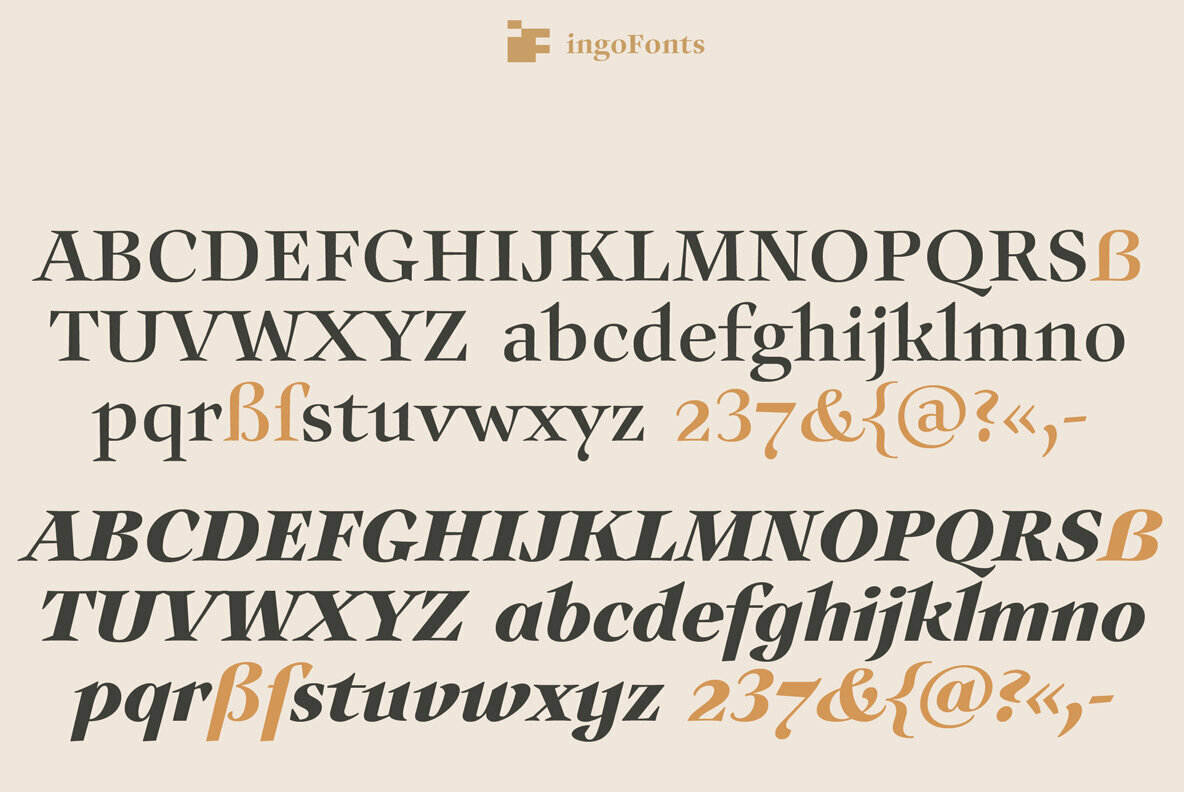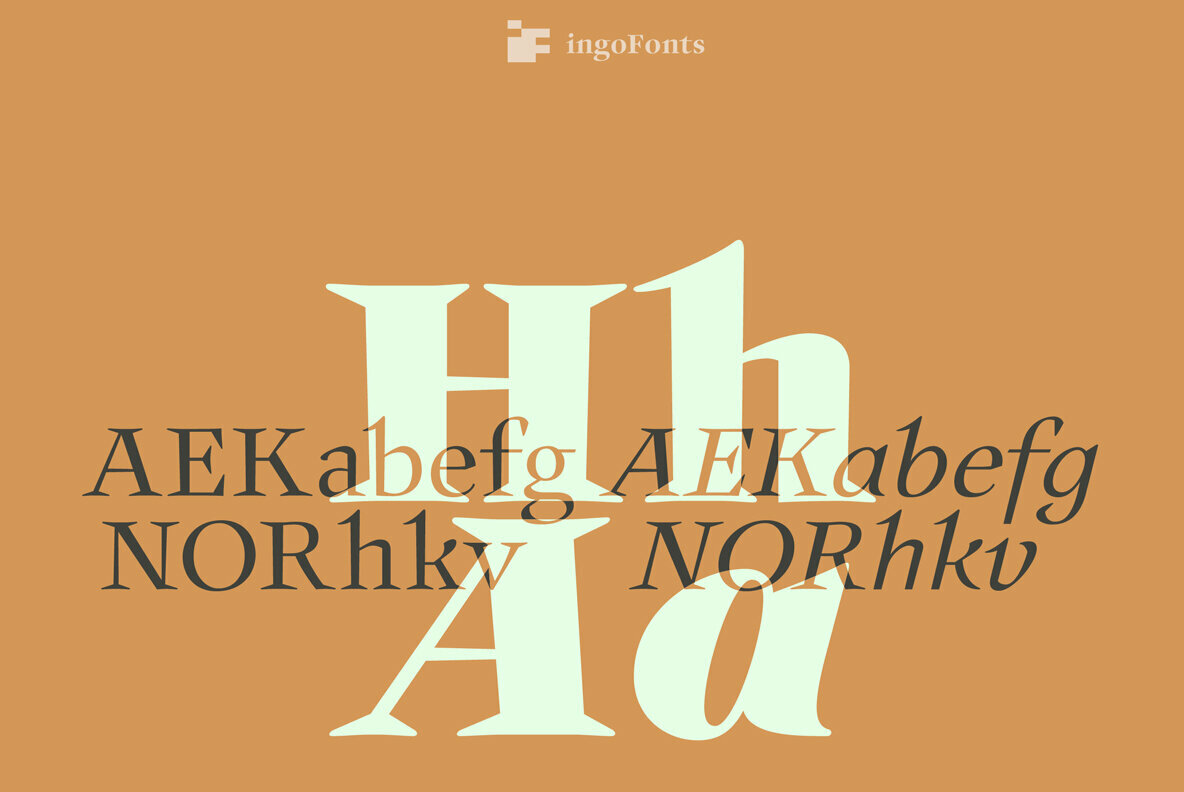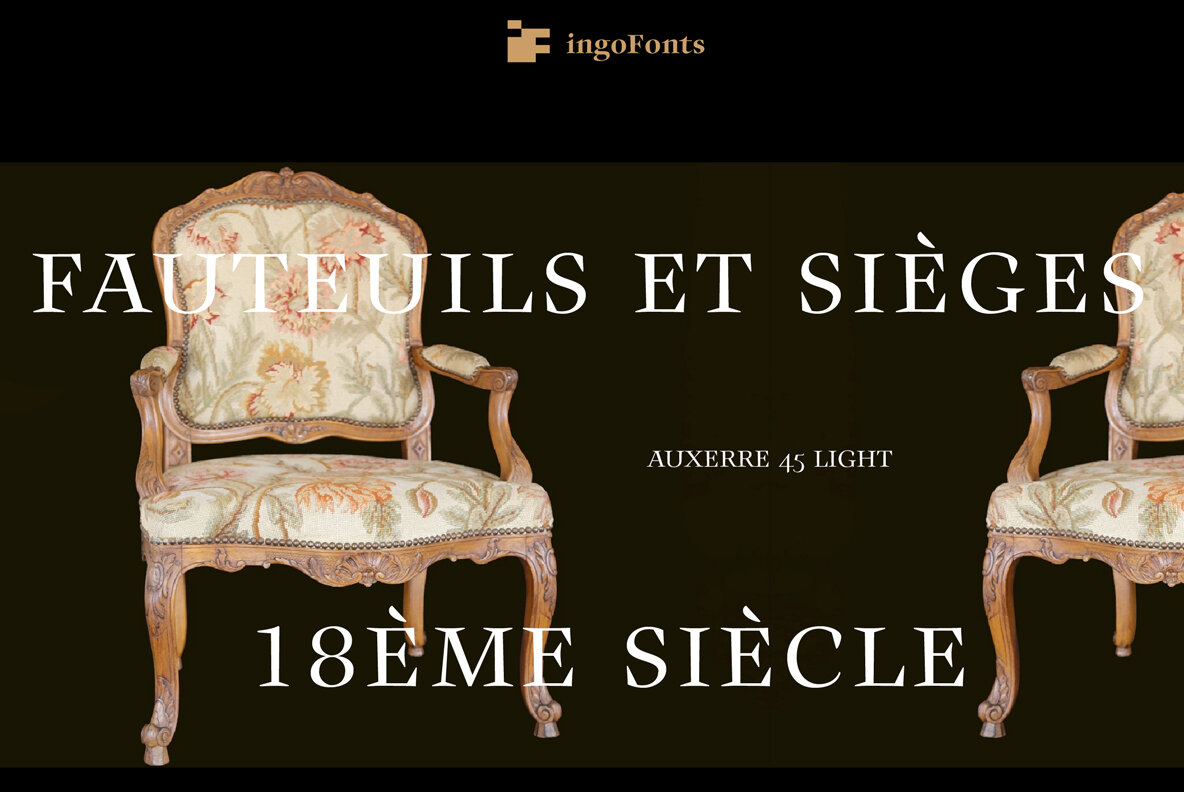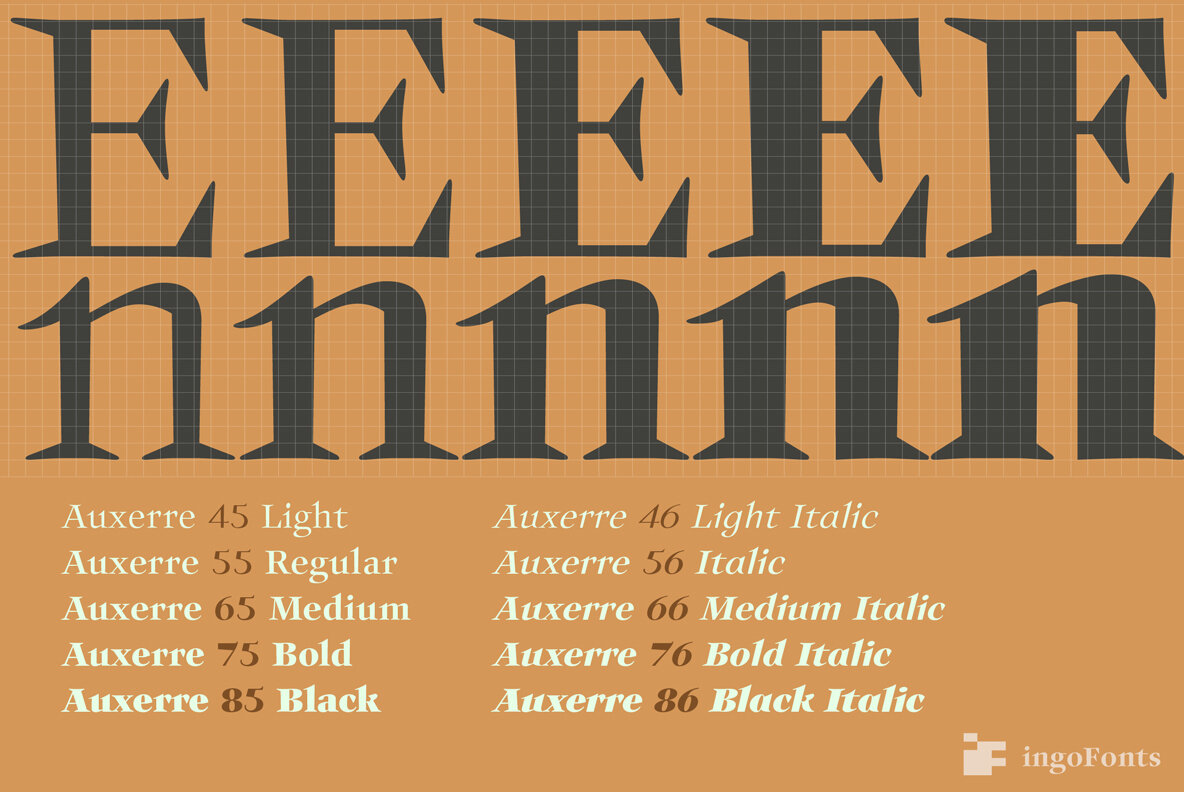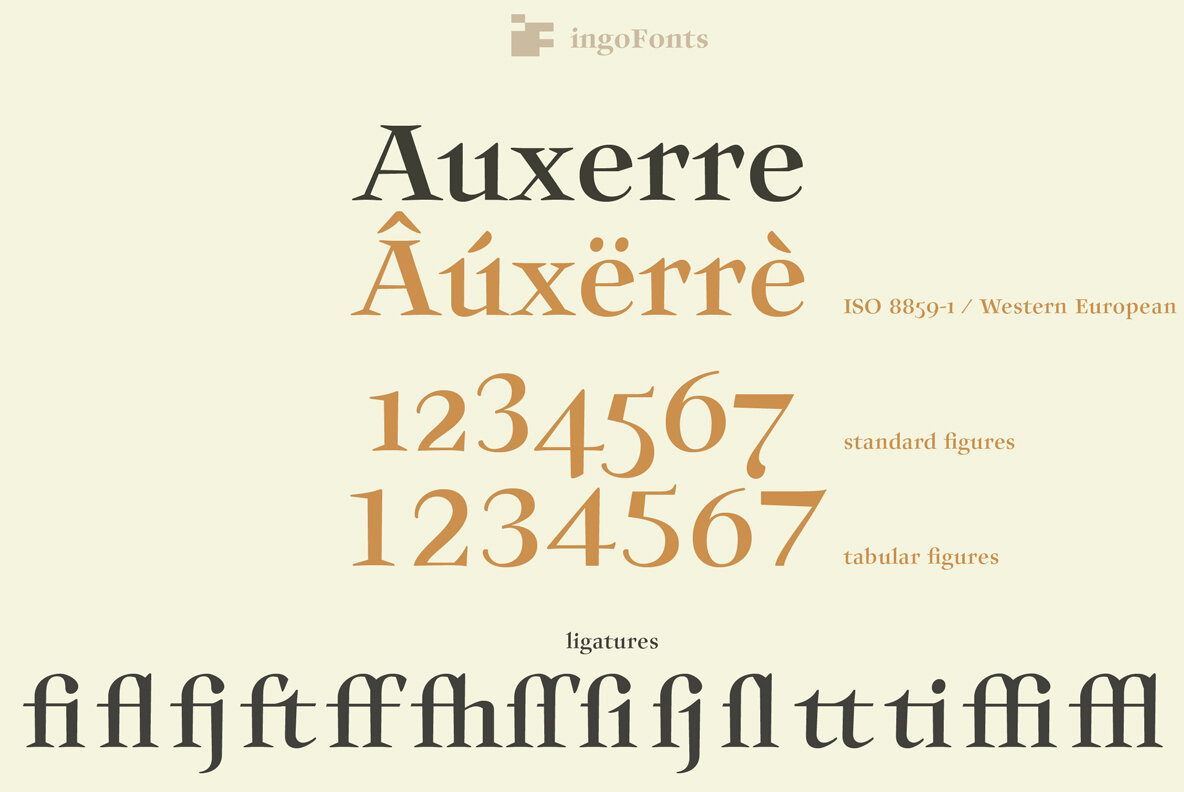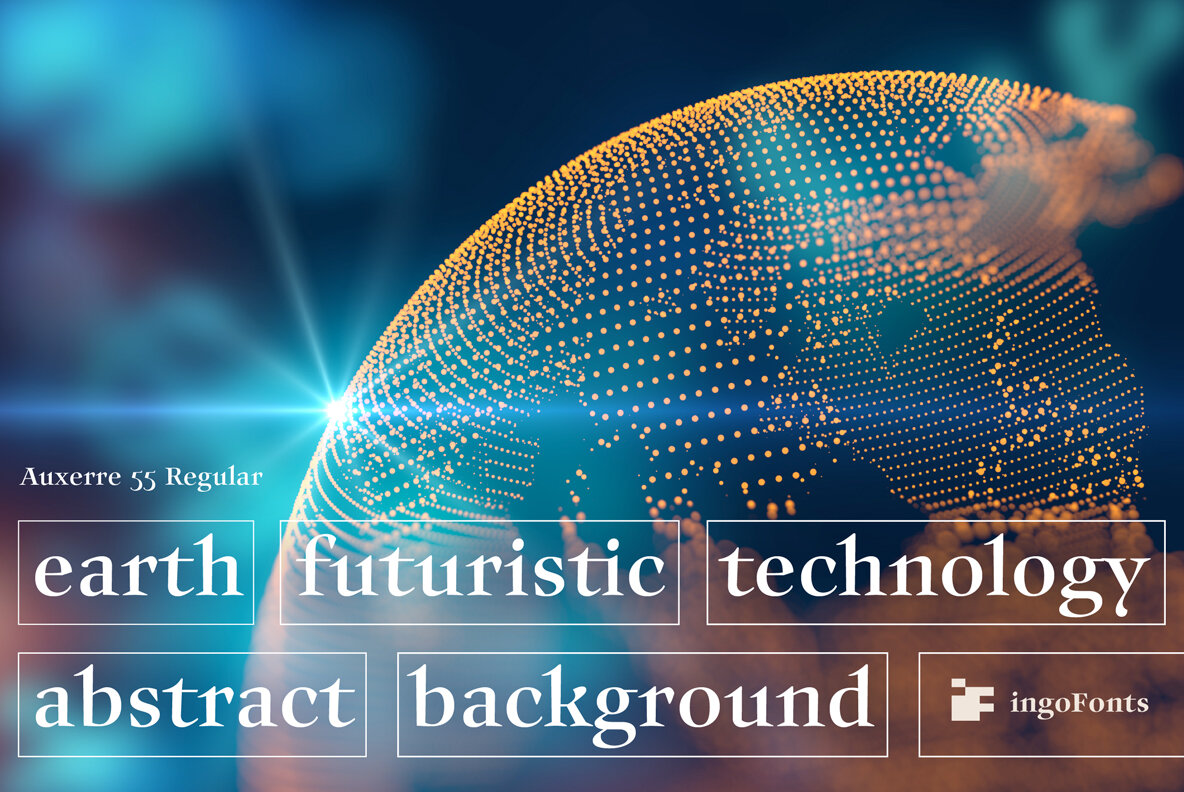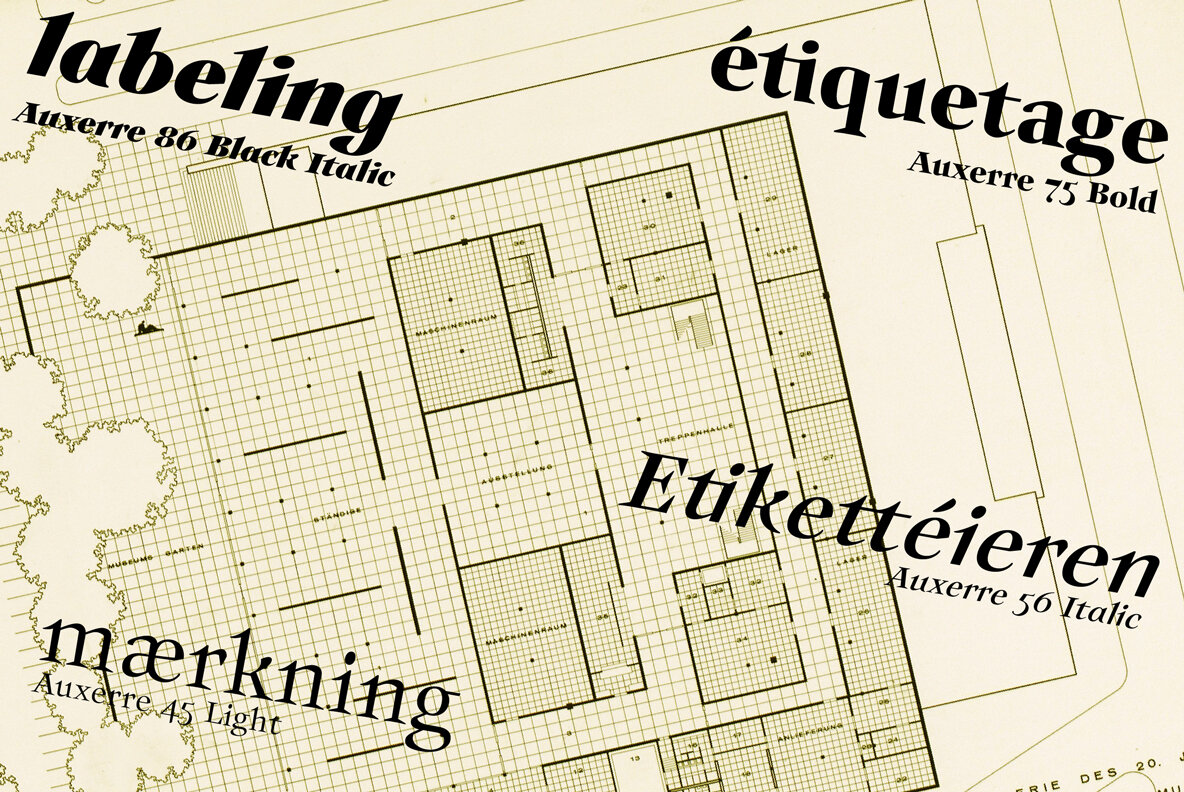
Auxerre Font
A Roman typeface with emphasized triangular serifs.
A font like this one could have been designed in 18th century France.
Type of Baroque style was already common then and dominated the appearance of printed matter. Anybody who was anybody searched for new forms of expression. Classicism had not yet announced itself. But the first signs of industrialization and the social changes resulting from it already whispered hints that some things could look different in the future. In my mind, I see a punchcutter, working diligently and eager to experiment; commissioned by an egotistic nobleman to design a new script for his printed materials. The punchcutter doesn’t dare touch the basic form or proportions of the characters. However, technique makes it possible to emphasize the contrast between baselines and thin strokes even more. He throws out the traditional serif form, and designs the serifs pointed and triangular. Even the transition in the stroke is no longer rounded but is angular. And he adds an unconventional ductus in the stroke with partly converging edges and occasional breaks in the round forms of the internal spaces.
So to some extent, Auxerre is a precursor of “Etienne,” which later became popular as an advertising script of the 19th century.